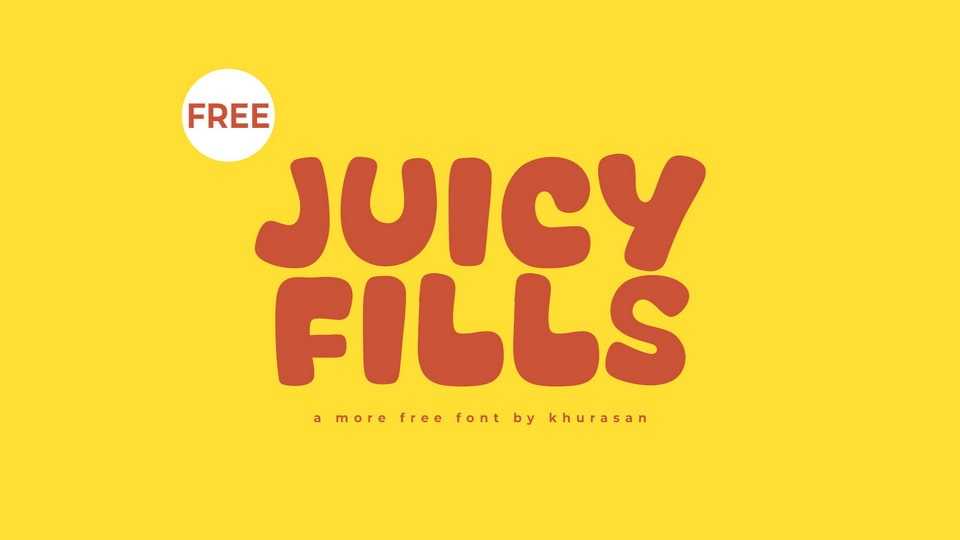
Download Juicy Fills font, a delightful and playful cartoon typeface that brings a sense of joy and imagination to any project. The smooth curves and rounded edges give the font a friendly and inviting feel, while the bold strokes ensure maximum impact and legibility.